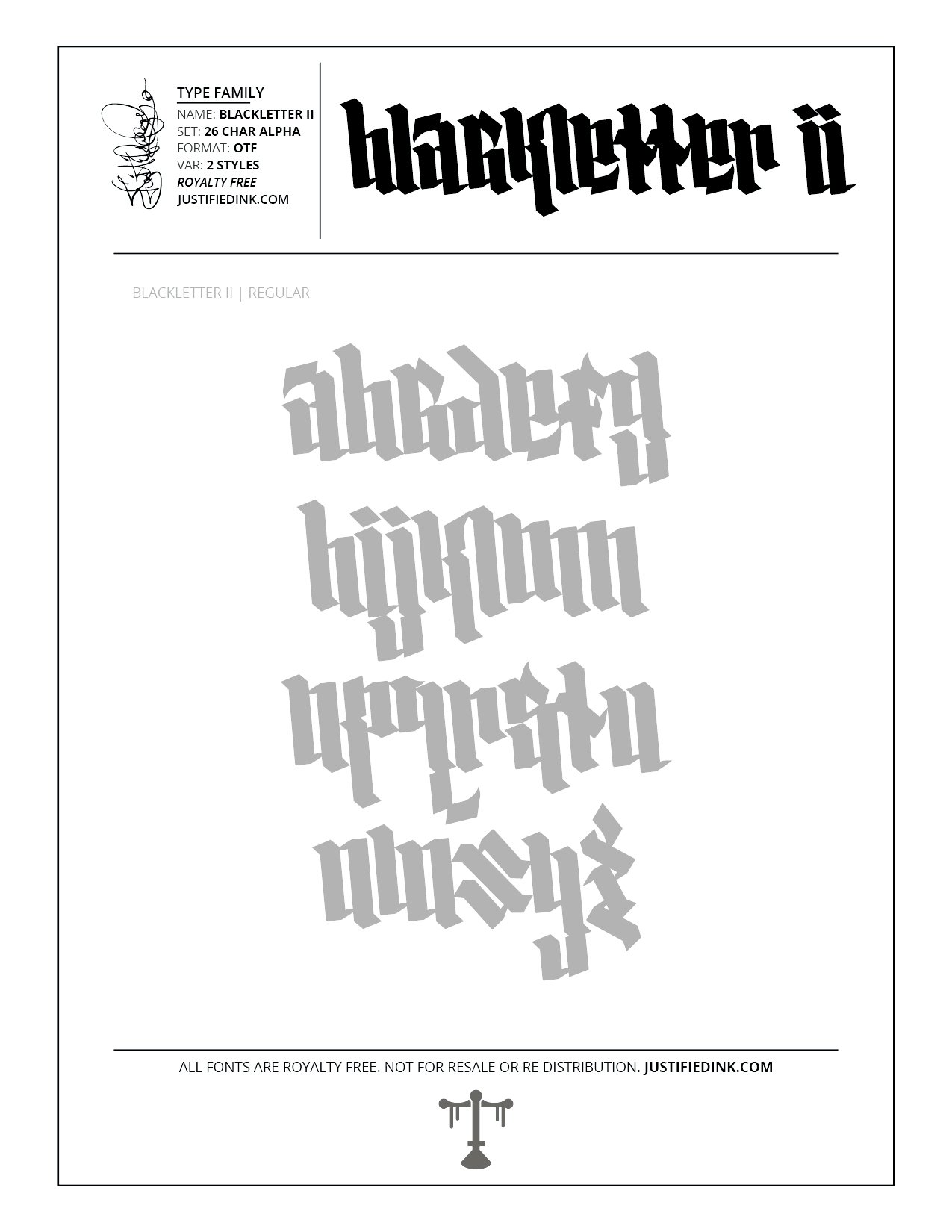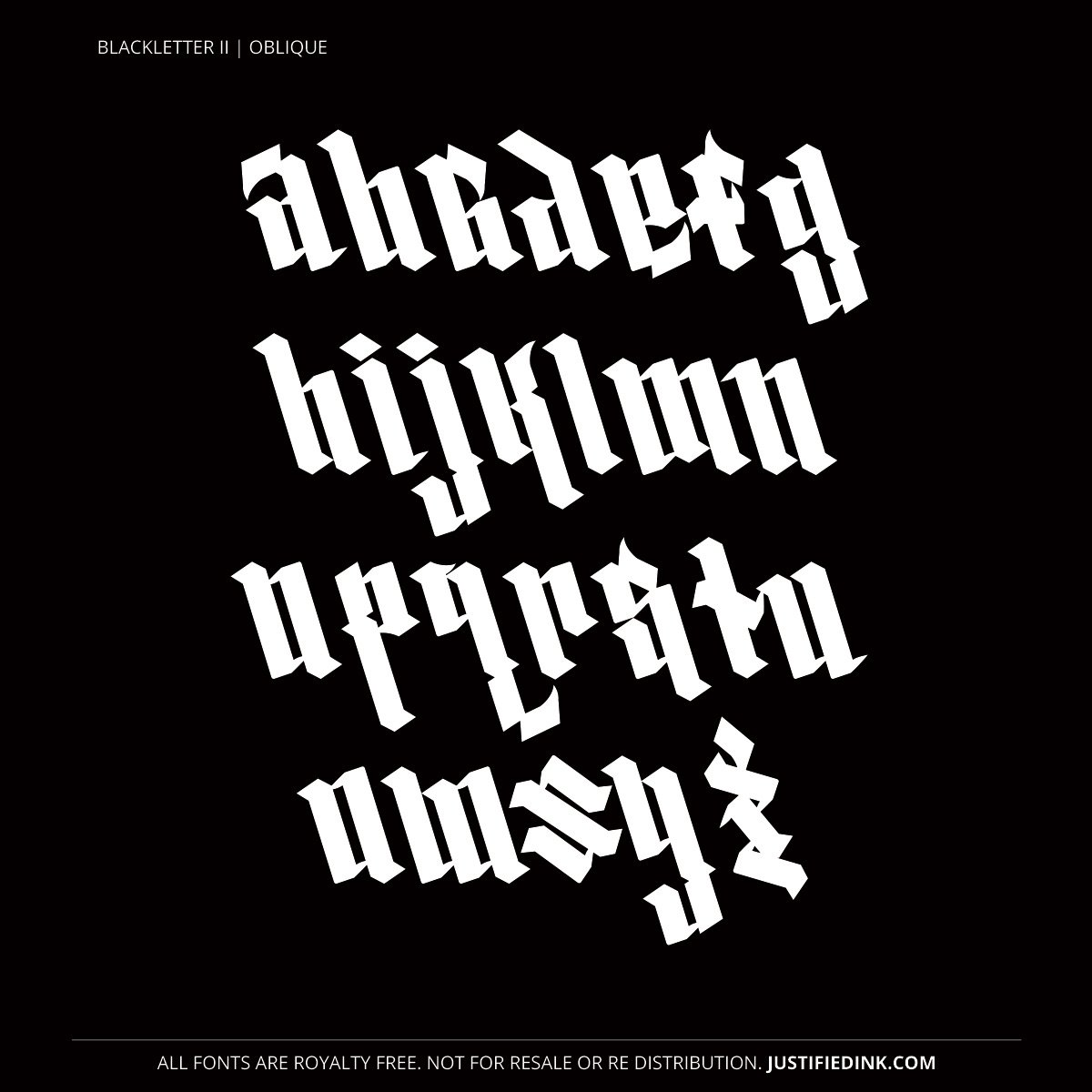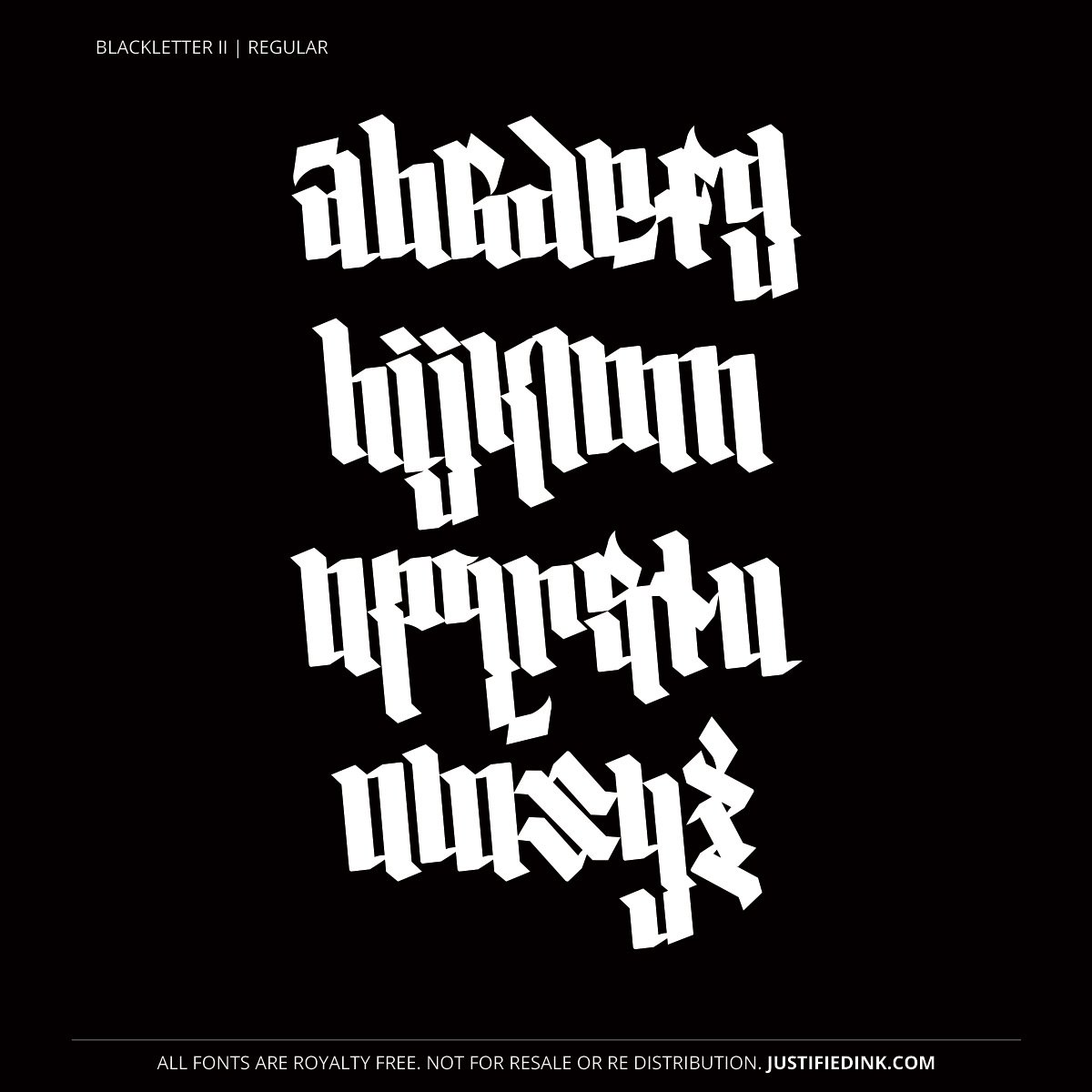
Blackletter II (2 styles) - Custom Font by Justified Ink
NAME: Blackletter II
Blackletter II is a heavy hitting font with the impact of a cannonball through wood. The title font for the Blackletter II collection, its a proper representation of simpler figures with strong statements.
This font is part of the collection by Justified Ink, called Blackletter II. After 15+ years creating, I began to focus on building personal libraries of my work. The Blackletter II Collection was created through writing page after page, and countless hours over a 2 year span of daily practice. Each font from this collection has been hand drawn, manually vectored, and custom set as a type-able font. It comes in a full set of 26 char alpha. Each font family has variations in styles and/or non-alpha chars.